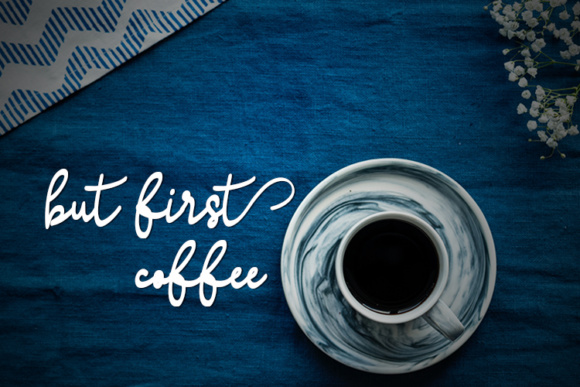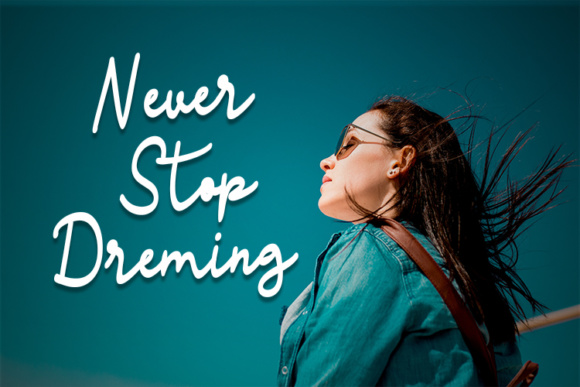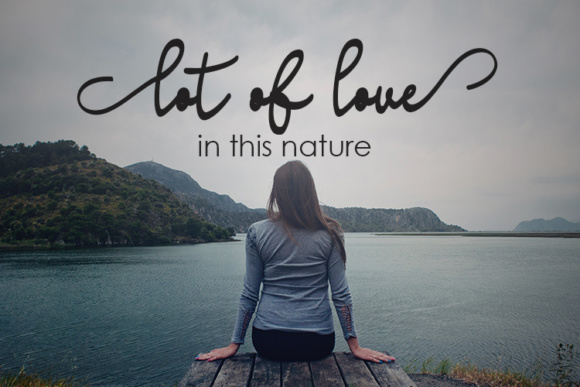
Madison Script Font
About Madison Script Font
The Madison is a handmade calligraphy script. Its dancing baseline gives it an elegant feel. Perfect to use for invitations, branding materials, business cards, quotes, and much more!